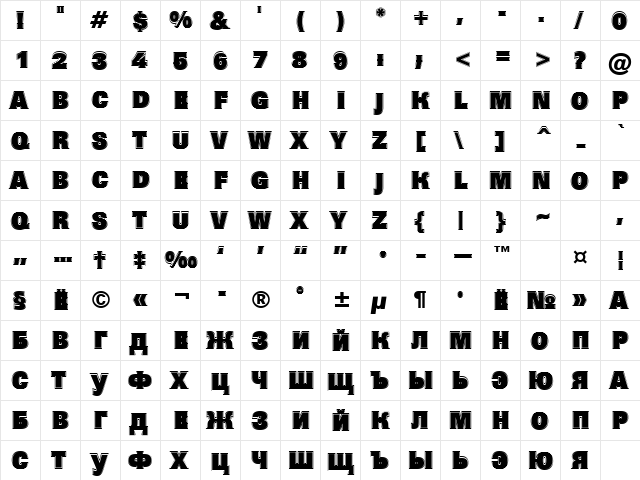
a_GroticTitulGrHv Regular
Design Context for a_GroticTitulGrHv Typeface
a_GroticTitulGrHv is a composed and adaptable typeface that performs quietly and consistently across a wide range of design contexts.